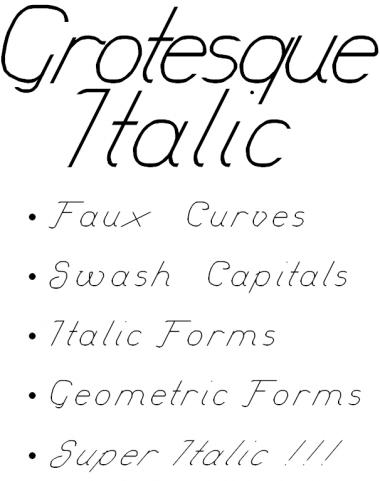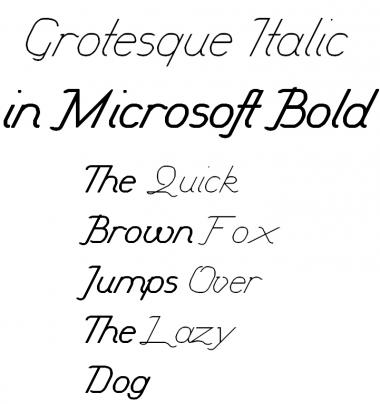
You are well on the way to something quite special here.
Once again, a great font. A spectacular font, well deserving of a top pick. 10/10+fav
Thank you both very much!
@time.peace: I doubt that a font could become a TP when incomplete, and unfortunately I am quite busy this week (in contrast to last) and so that won't happen in a hurry.
Awesome font. Just as insight, the Q looks a little awkward, like its not fitting in with the rest of the font. Other than that, nice job!
Awesome! I would like to see it when finished...
One thing, I prefer wider spacing on each letter.
@h1k765: To be an italic Q, it needs to be in its current shape, but here I have slightly neglected it.. I will change the awkward angle of it and amend the curl somehow so that it looks less like a fancy 2.
@cablecomputer: I did condense the spacing a little. I have become infatuated recently by the immediacy of condensed spacing in advertising, and this has obviously clouded my judgement, as there are obviously different standards for spacing in italic fonts than in roman ones. Do you think I should increase left side bearings on letters like j, f and A? Does your point about spacing apply particularly to the uppercase?
I would like to say that I appreciate your constructive criticisms and endorse anyone else's with ideas about this font.
@Cohnisgone: Left side bearings? I haven't see any problem, seems okay.
And normally, a script or "semi-script" fonts like this don't use ALL CAPS when in action. So, it doesn't matter if spacing between uppercase letters looks a bit messy.
A thing that you should focus on is spacing between uppercase and lowercase letters; and it looks just okay in this case...
As with many of my fonts, I have realised that one of my chief mistakes with this one was to make the line too thin. Here it is in bold:
WOW AMAZING!!!!! one thing: x is too wide
Thank you winty5. I've taken note and changed it. Do you think the like would be necessary for X?